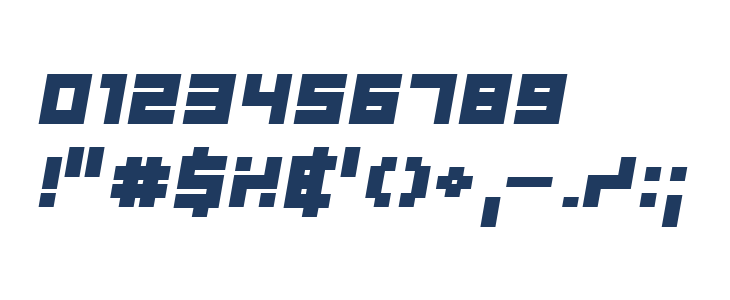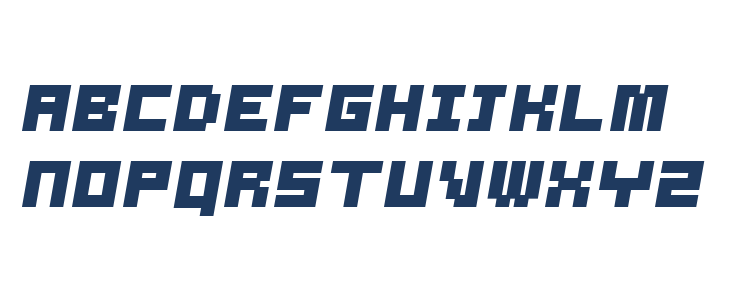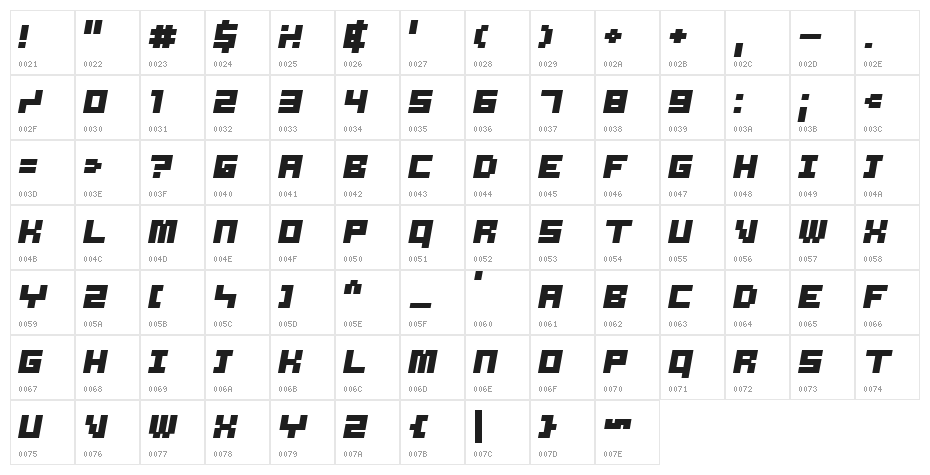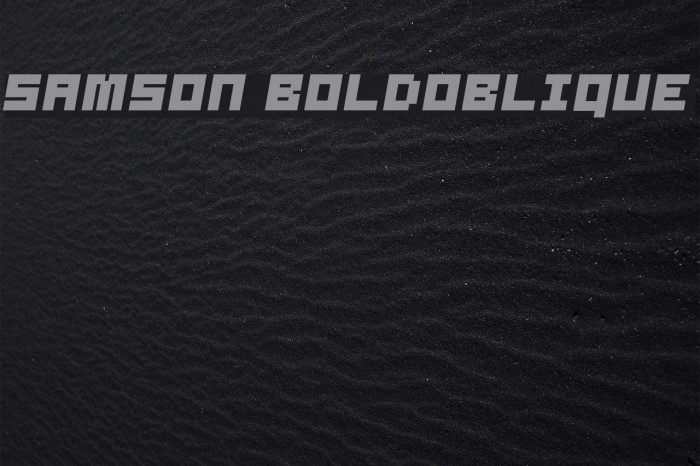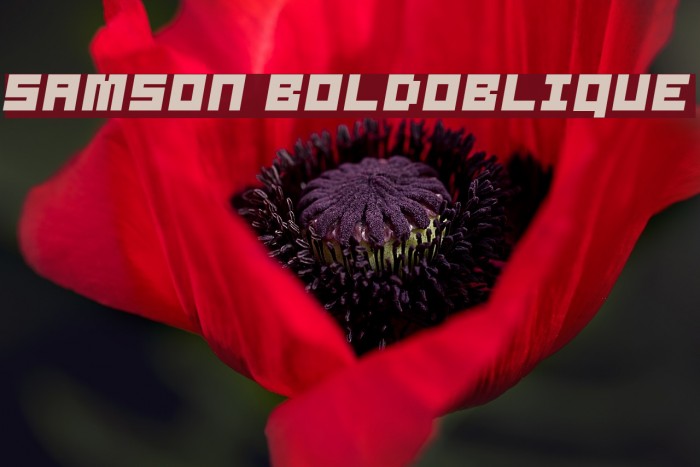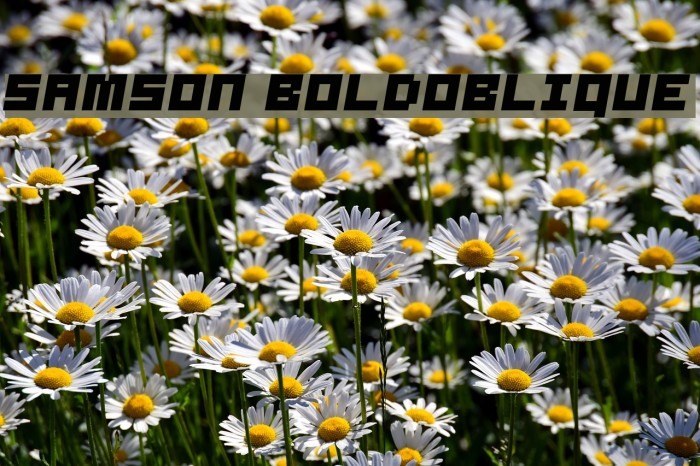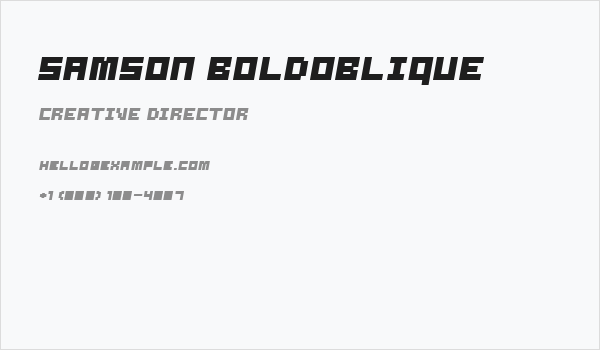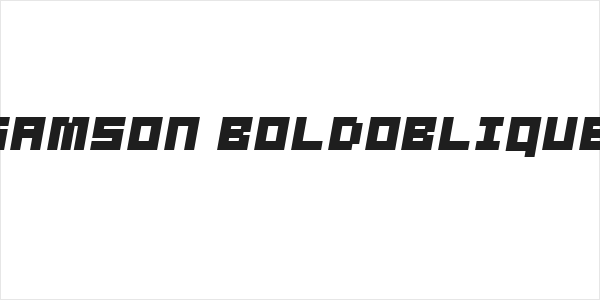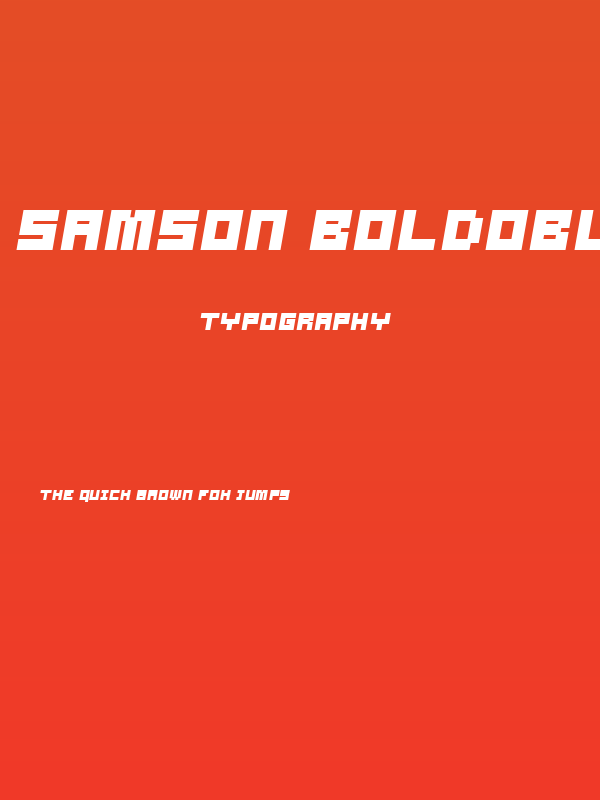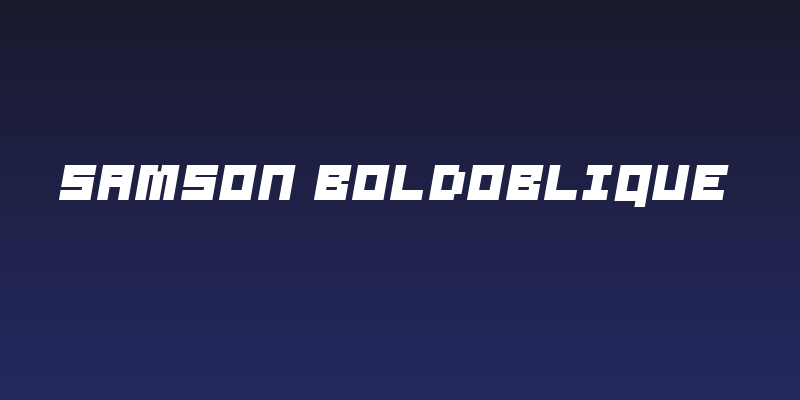
Samson BoldOblique Font
Samson BoldOblique Description
This font features a bold and oblique style with a strong geometric structure. The characters are designed with sharp angles and a blocky appearance, giving it a futuristic and dynamic look. The uppercase and lowercase letters maintain a consistent width, providing a uniform and cohesive appearance. The numerals and special characters follow the same angular design, ensuring visual harmony across all elements. The font's boldness and slant make it stand out, ideal for attention-grabbing designs.
| Proposed Projects | Ideal for futuristic branding, sports team logos, video game titles, and dynamic poster designs. |